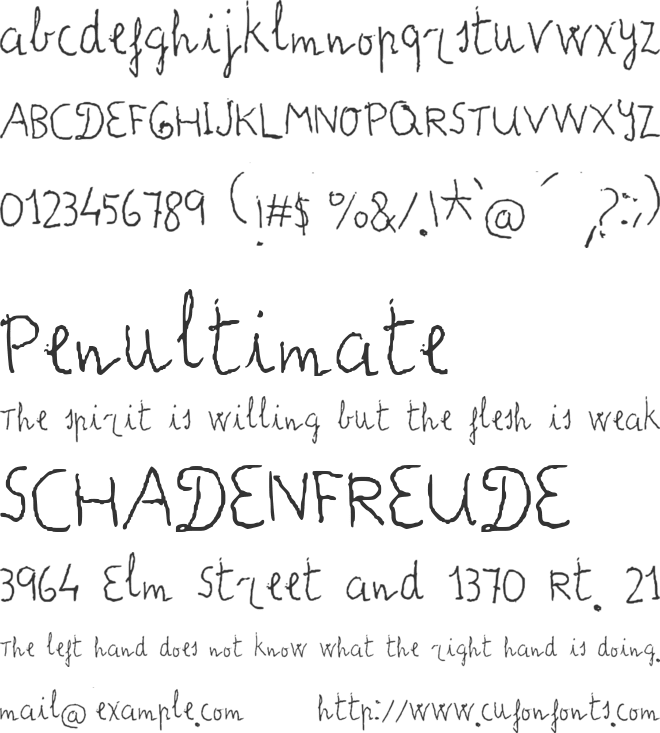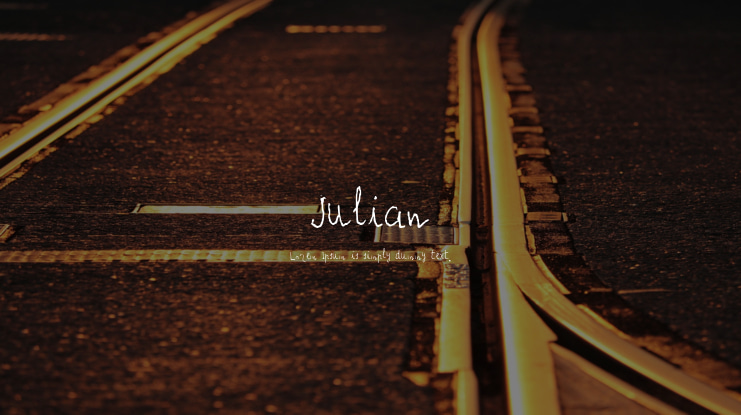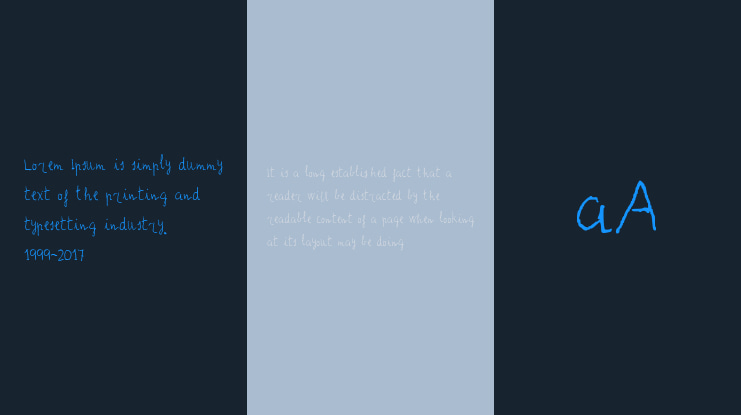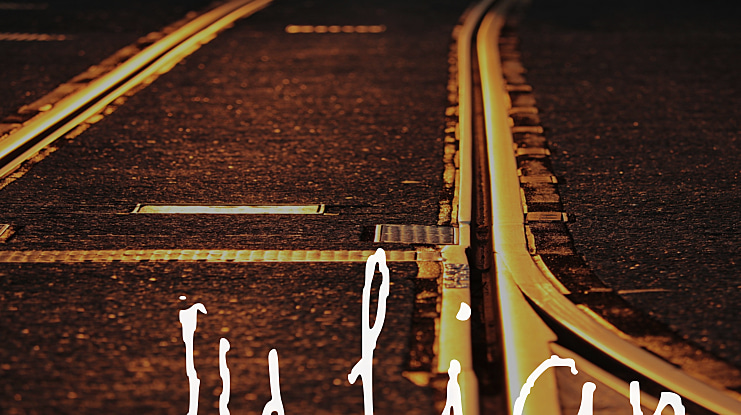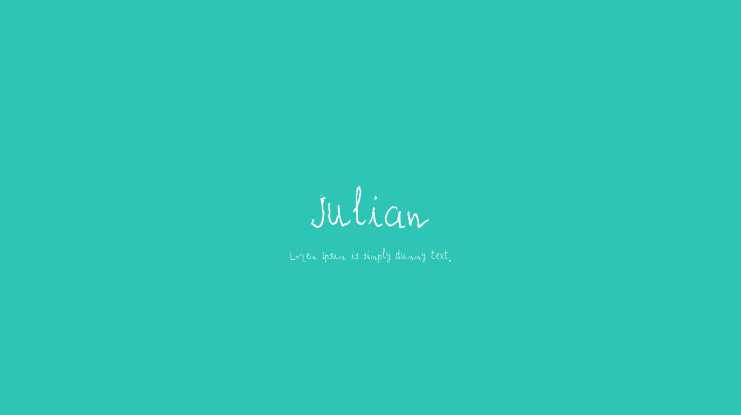
Julian Font
Typical Castilian old handwriting from Spain. This font has a traditional and natural look.
This font includes all characters used in Spanish, Portuguese, French, English and Irish, and compatible with Latin script languages.